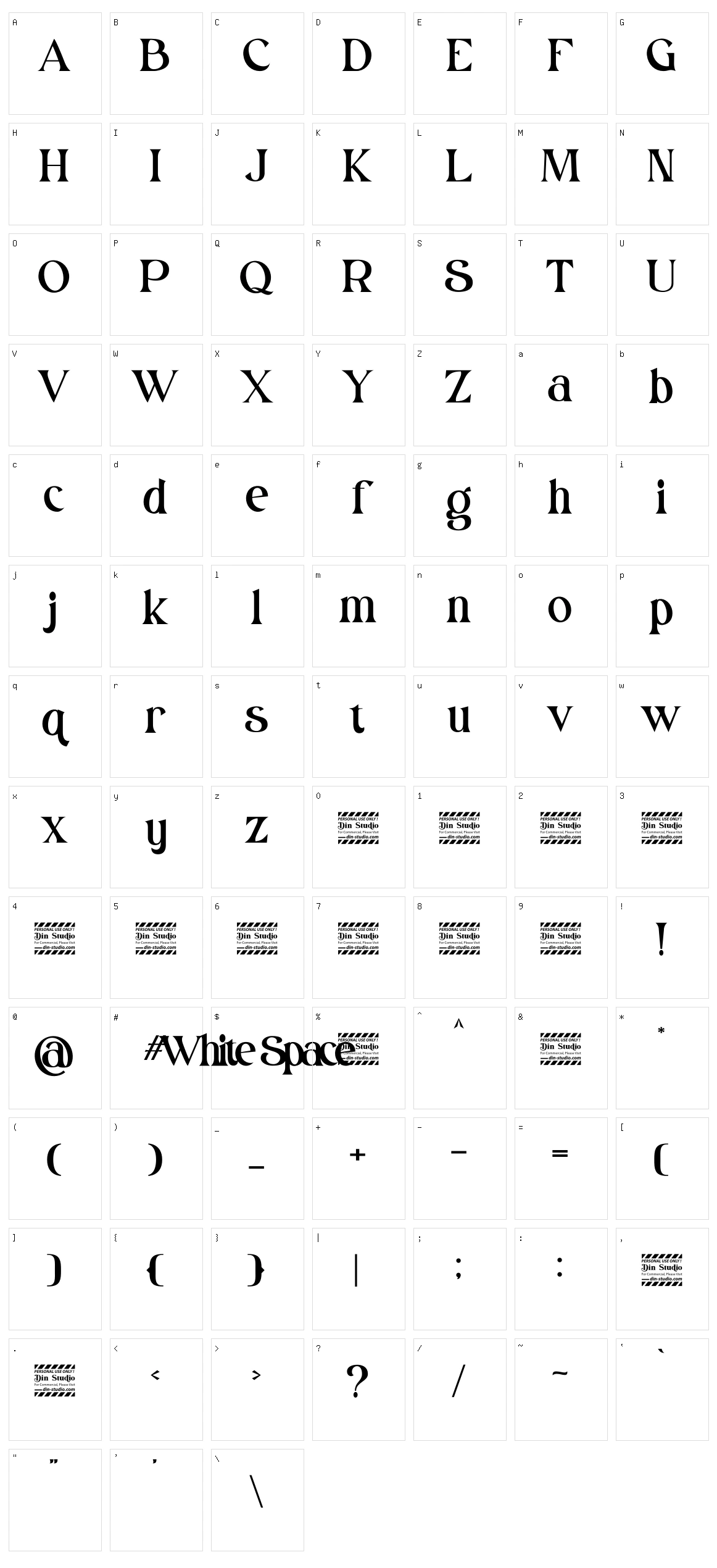
The free font White Space is carefully designed by Din Studio, showcasing a thoughtful balance of creativity and usability and falls under the Serif font style. When you download the ZIP file, it contains only 1012.19 KB of font files, making it lightweight and quick to download. Please review the license details below to understand permitted usage and distribution rights. If license information is not available, we recommend using this font for personal projects only or contacting the author directly for commercial usage permissions.